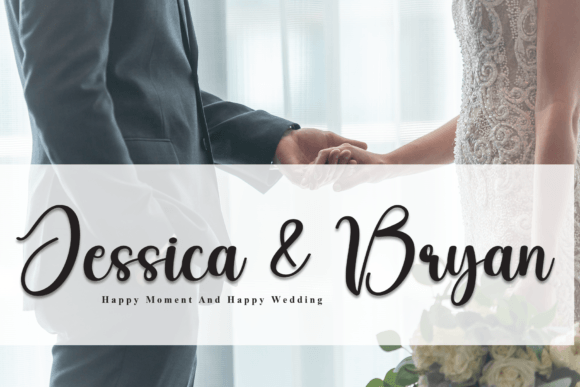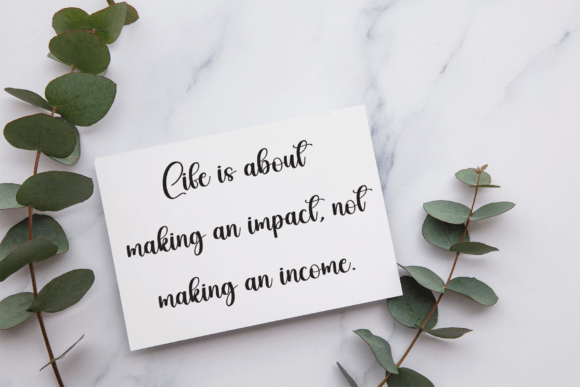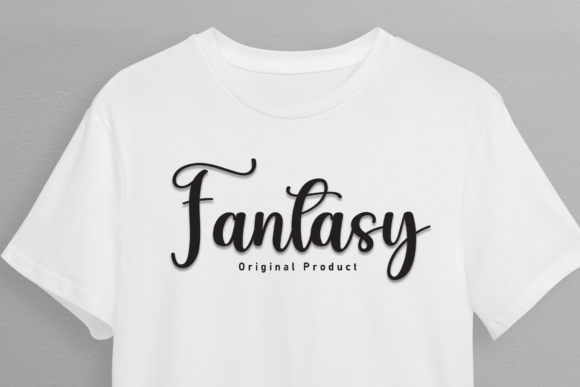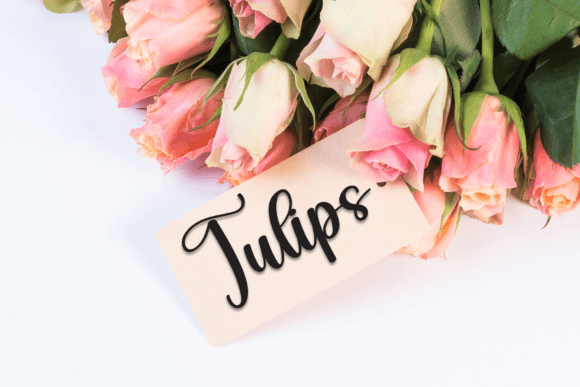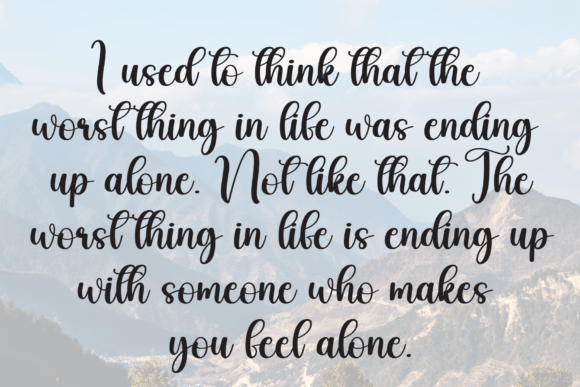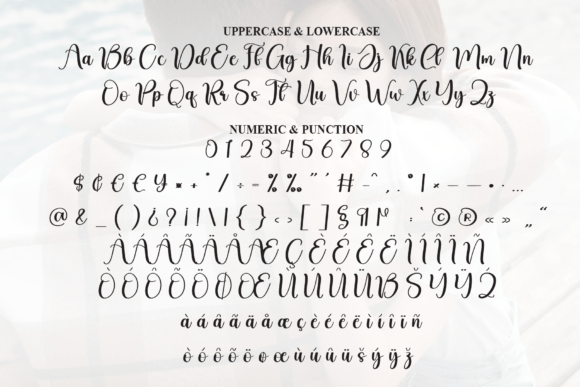
Introducing the Beloved Font: Sweet and Friendly Handwritten Display
In the world of typography, fonts play a crucial role in conveying emotions and setting the tone for designs. For crafters and designers seeking to add a personal touch to their projects, the Sweet and Friendly Handwritten Display font is a treasured find. This beloved font is designed to bring a sense of warmth and personality to any design, making it perfect for those who want to create a lasting impression.
The Charm of Handwritten Notes
There’s something special about handwritten notes that digital communication can’t replicate. The imperfections, the flair, and the personality that come with handwritten text make it uniquely endearing. The Sweet and Friendly Handwritten Display font captures this essence, allowing designers to infuse their projects with a similar charm. Whether you’re working on wedding invitations, greeting cards, or any other design that requires a personal touch, this font is sure to delight.
Adorable and Jovial Flair
What sets the Sweet and Friendly Handwritten Display font apart is its adorable and jovial flair. This font isn’t just about slapping words on a page; it’s about bringing a smile to the reader’s face. The playful curves and friendly demeanor of this font make it perfect for designs that require a bit of whimsy. Imagine using it for a child’s birthday invitation or a playful branding project – the possibilities are endless!
Perfect for Whimsical Designs
For designers and crafters who specialize in whimsical or playful designs, the Sweet and Friendly Handwritten Display font is a dream come true. Its unique character and friendly vibe make it an excellent choice for:
- Whimsical wedding invitations that stand out from the crowd
- Personalized greeting cards that feel like a warm hug
- Children’s book titles or nursery decor that require a playful touch
- Branding projects that need a friendly, approachable feel
This font’s versatility ensures that it can be used across various design projects, adding a consistent and charming touch that resonates with audiences.
Bringing Words to Life
The true magic of the Sweet and Friendly Handwritten Display font lies in its ability to bring words to life. It’s not just a font; it’s a way to communicate emotions and personality through text. When you’re working on a project that requires a bit of intimacy and charm, this font steps in to fill the gap. It transforms ordinary text into a visually appealing and engaging message that captures the reader’s attention.
Adding an Intimate Touch
In today’s digital age, designs can sometimes feel cold or impersonal. The Sweet and Friendly Handwritten Display font offers a solution to this problem by adding an intimate, charming touch to your projects. This is particularly valuable for:
- Wedding and event planners looking to create personalized invitations
- Small business owners who want to connect with their customers on a personal level
- Artists and crafters who sell handmade goods and want to convey a sense of care and attention to detail
By incorporating this font into your designs, you can create a sense of connection and warmth that makes your projects more memorable.
The Sweet and Friendly Handwritten Display font is more than just a typography choice; it’s a way to infuse your designs with personality, charm, and a sense of whimsy. Whether you’re a professional designer or a DIY crafter, this beloved font offers endless possibilities for creating engaging and visually appealing projects. Experience the charm of a warm, handwritten note with this delightful font, and watch your designs come to life in a way that resonates with your audience.
Get Ready to Fall in Love with Your Designs Again
With the Sweet and Friendly Handwritten Display font, you’re not just choosing a font; you’re embracing a design approach that values personality and connection. So, go ahead and let your creativity shine with this adorable font. Your designs—and your audience—will thank you.